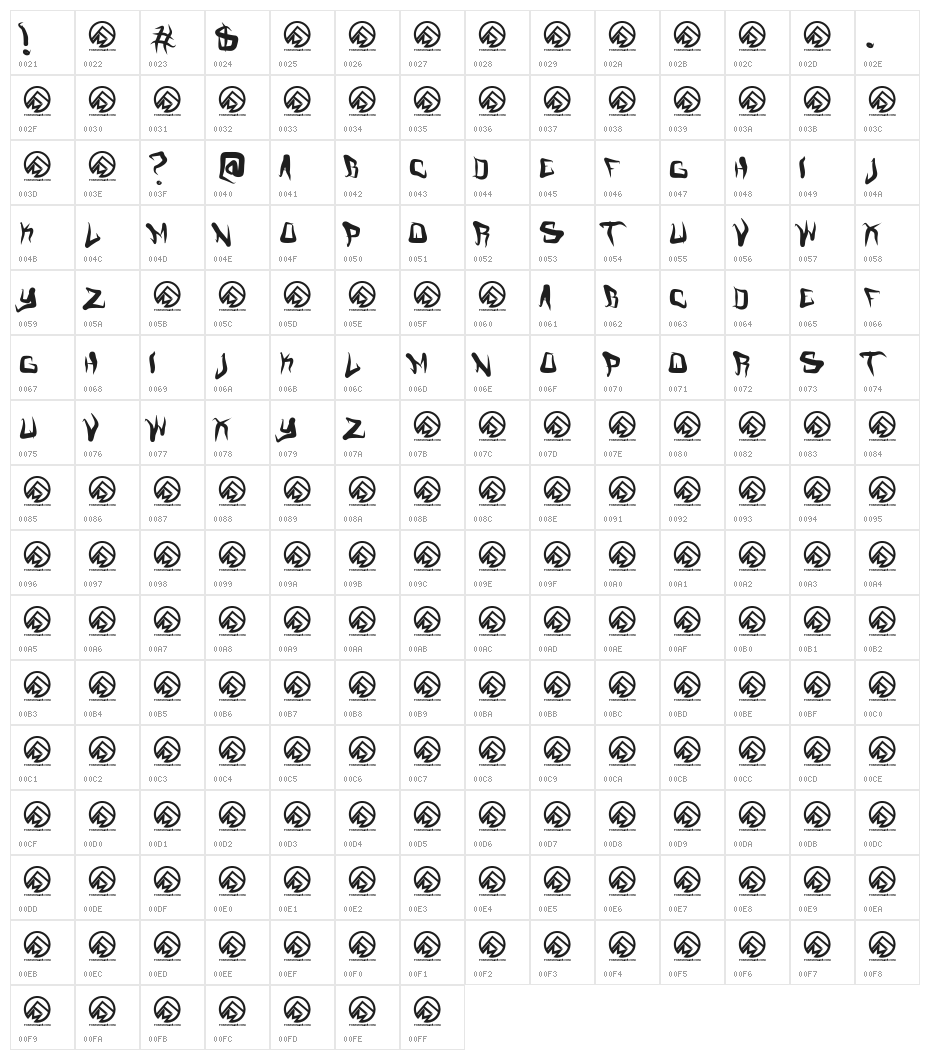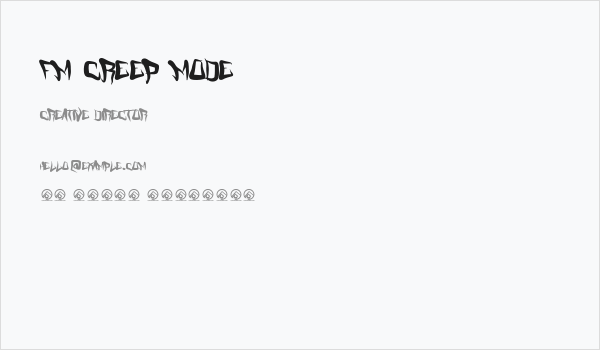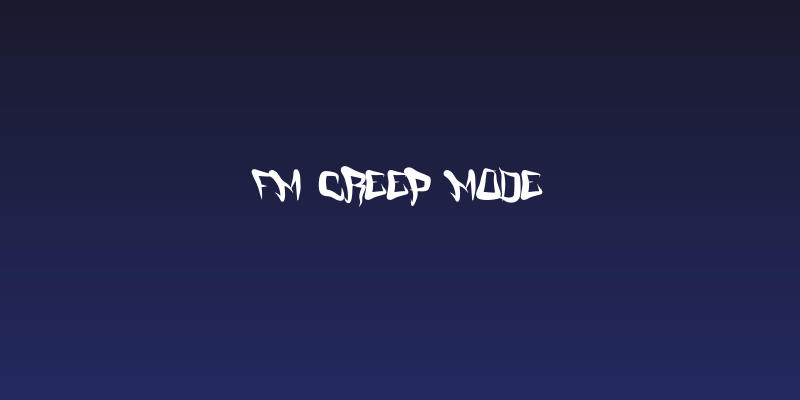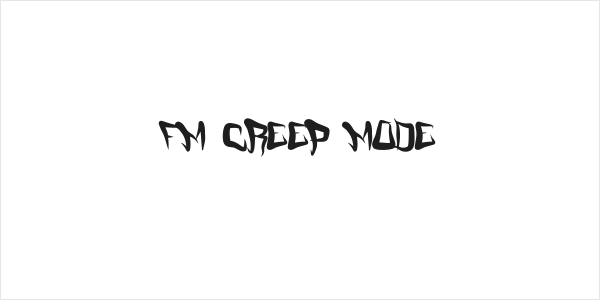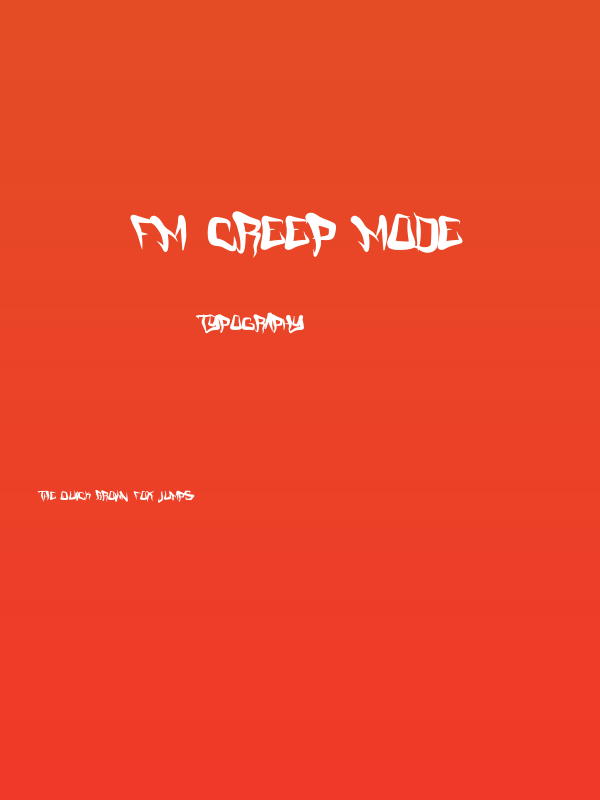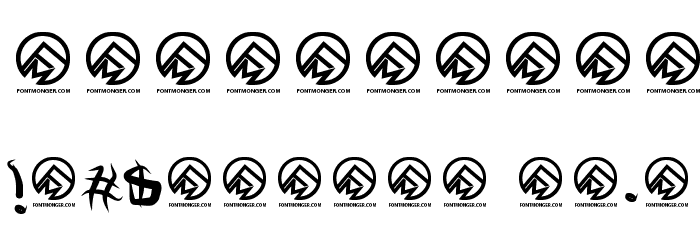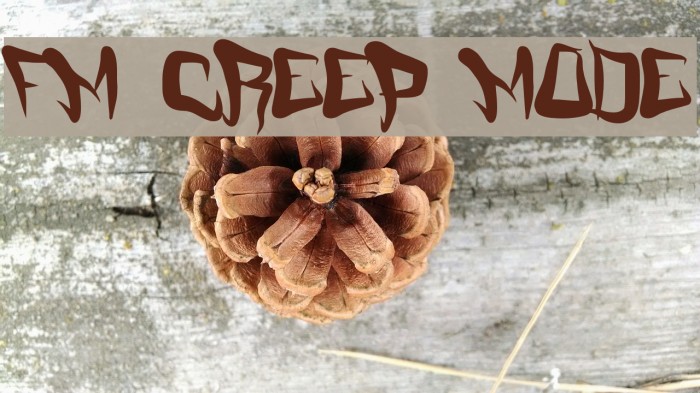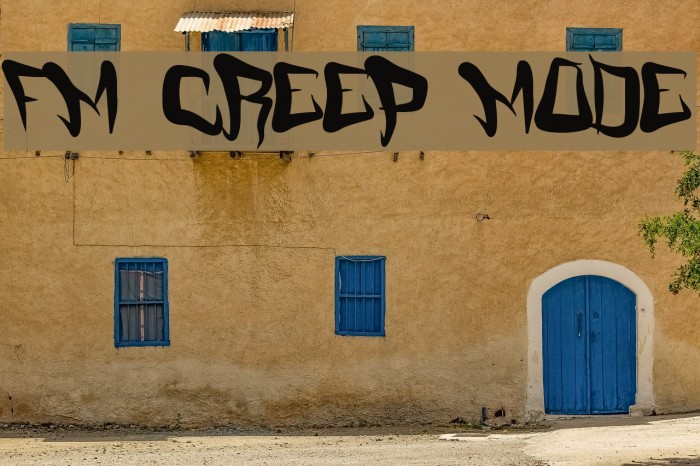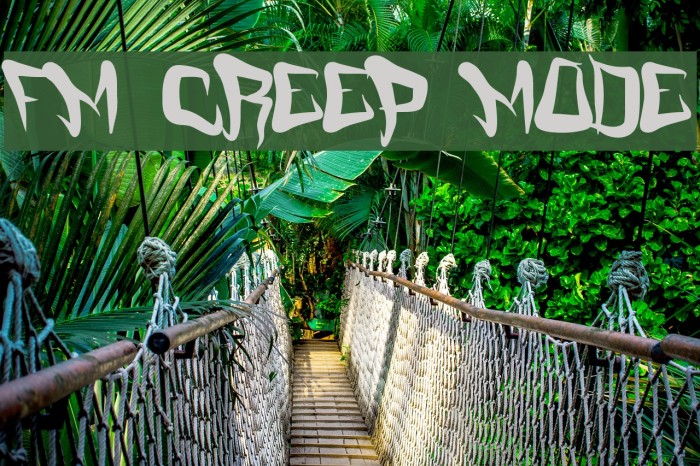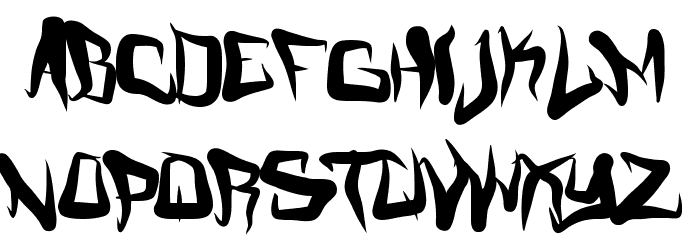
FM Creep Mode Font
FM Creep Mode Description
This font features a bold and edgy design with sharp, angular strokes that give it a distinctly aggressive and modern appearance. The characters are highly stylized, with exaggerated curves and points that create a sense of movement and intensity. The uppercase and lowercase letters maintain a consistent style, emphasizing the font's cohesive and striking visual impact. The numbers and special characters are equally dynamic, ensuring a uniform look across all text elements. This font is perfect for projects that require a bold statement, such as posters, album covers, or branding for edgy and contemporary brands.
| Proposed Projects | Ideal for posters, album covers, branding for edgy brands, and any project needing a bold statement. |